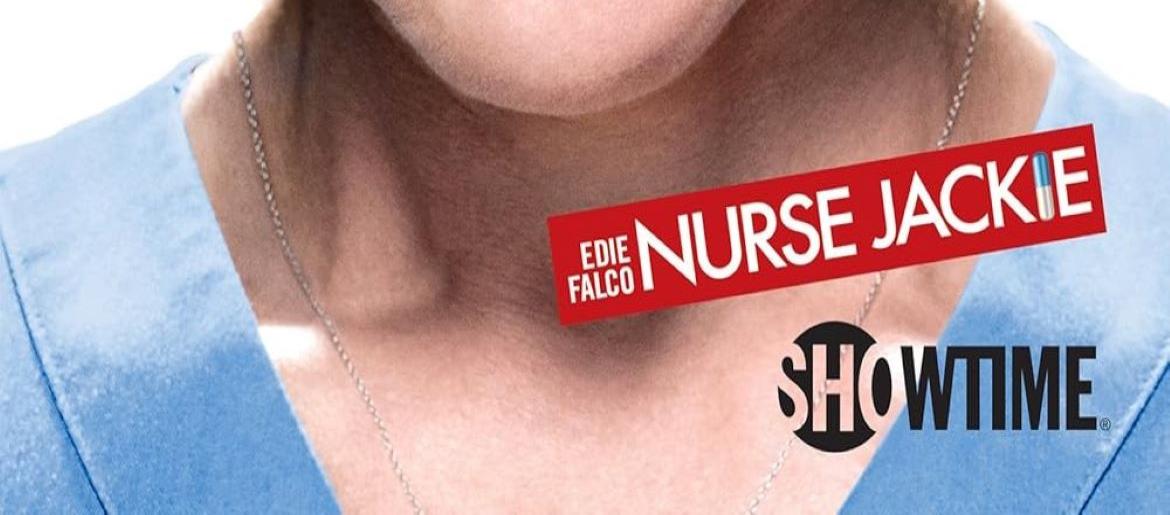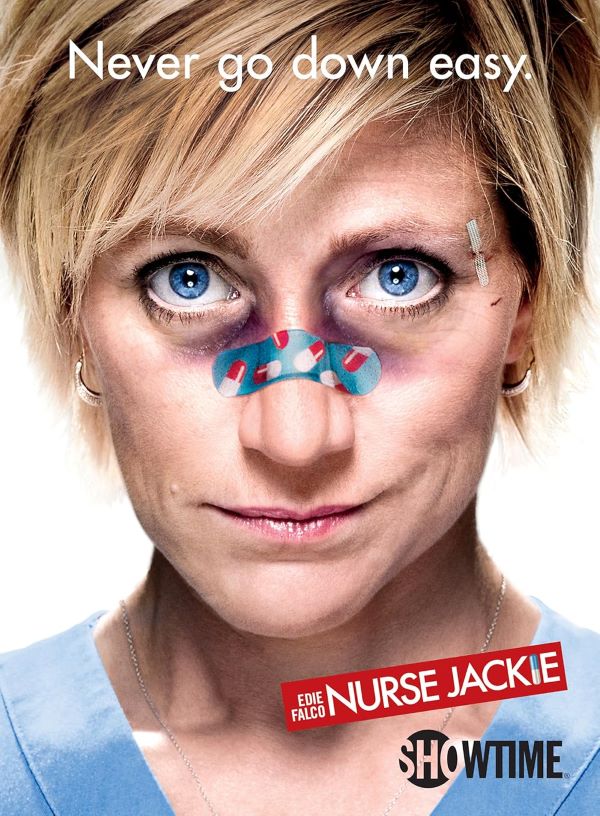
Nurse Jackie Font
What Font is Nurse Jackie?
The Nurse Jackie font Futura Medium, a premium sans-serif typeface known for its clean geometric shapes and modern readability—features that reflect the show’s bold, no-nonsense approach to its medical-drama themes. While Futura Medium is a commercial font, we’ve found a free alternative font that closely matches its streamlined and professional design, ideal for design projects inspired by the series’ visual style.
About Nurse Jackie
Nurse Jackie is a darkly comedic medical drama that premiered in 2009 and ran until 2015. Starring Edie Falco as Jackie Peyton, an ED nurse in New York City who juggles high-pressure hospital work with a challenging personal life and prescription-medication dependence, the show blends sharp humor, emotional depth, and gritty realism. Alongside co-stars Merritt Wever, Paul Schulze, and Dominic Fumusa, the series explores themes of addiction, redemption, and resilience in a relentless hospital setting. With its unique tone and compelling character study, Nurse Jackie remains a standout in the genre for its fearless storytelling and complex protagonist.